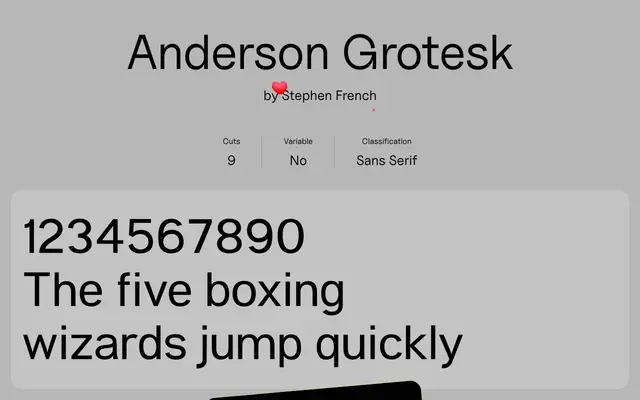
Anderson Grotesk
A free grotesque sans by Stephen French offered in nine cuts for commercial and personal use.
A grotesque sans serif by Stephen French, distributed freely through Uncut for both commercial and personal projects. It comes in nine cuts, though no variable font is offered. Licensing is unspecified beyond 'free', so checking with the creator before use in professional contexts is advisable.
Classified as Sans Serif on the page; the name 'Grotesk' signals a grotesque or neo-grotesque tradition, typical of upright, single-storey letterform conventions.